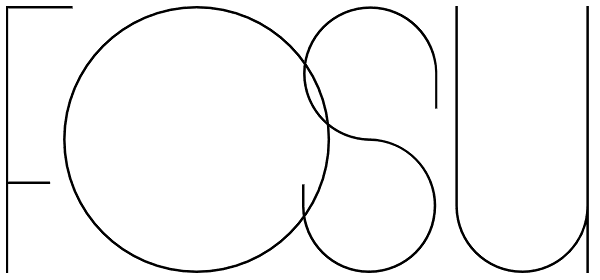
Fosu
FOSU is a unique, geometric font that is entirely uppercase, extra thin, and very sleek. It is a legible font with some abstract characteristics. The uppercase letters are kerned tighter than the lowercase ones. It supports most international...